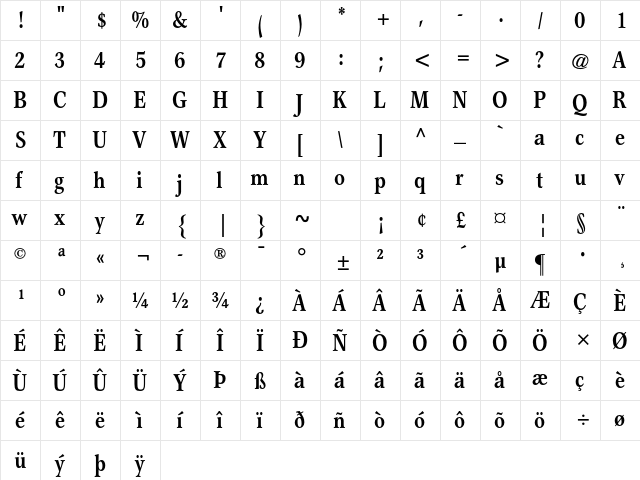
Garth Graphic Std Bold Condensed Font Preview
| Designer | John Matt, Renee LeWinter, Constance Blanchard |
Design Context for Garth Graphic Std Typeface
Garth Graphic Std takes a measured approach to typography — its balanced proportions and neutral character make it a reliable workhorse for both digital and print work. Its bold stroke weight gives it real presence on the page. The condensed width makes it efficient for tight spaces without sacrificing legibility.